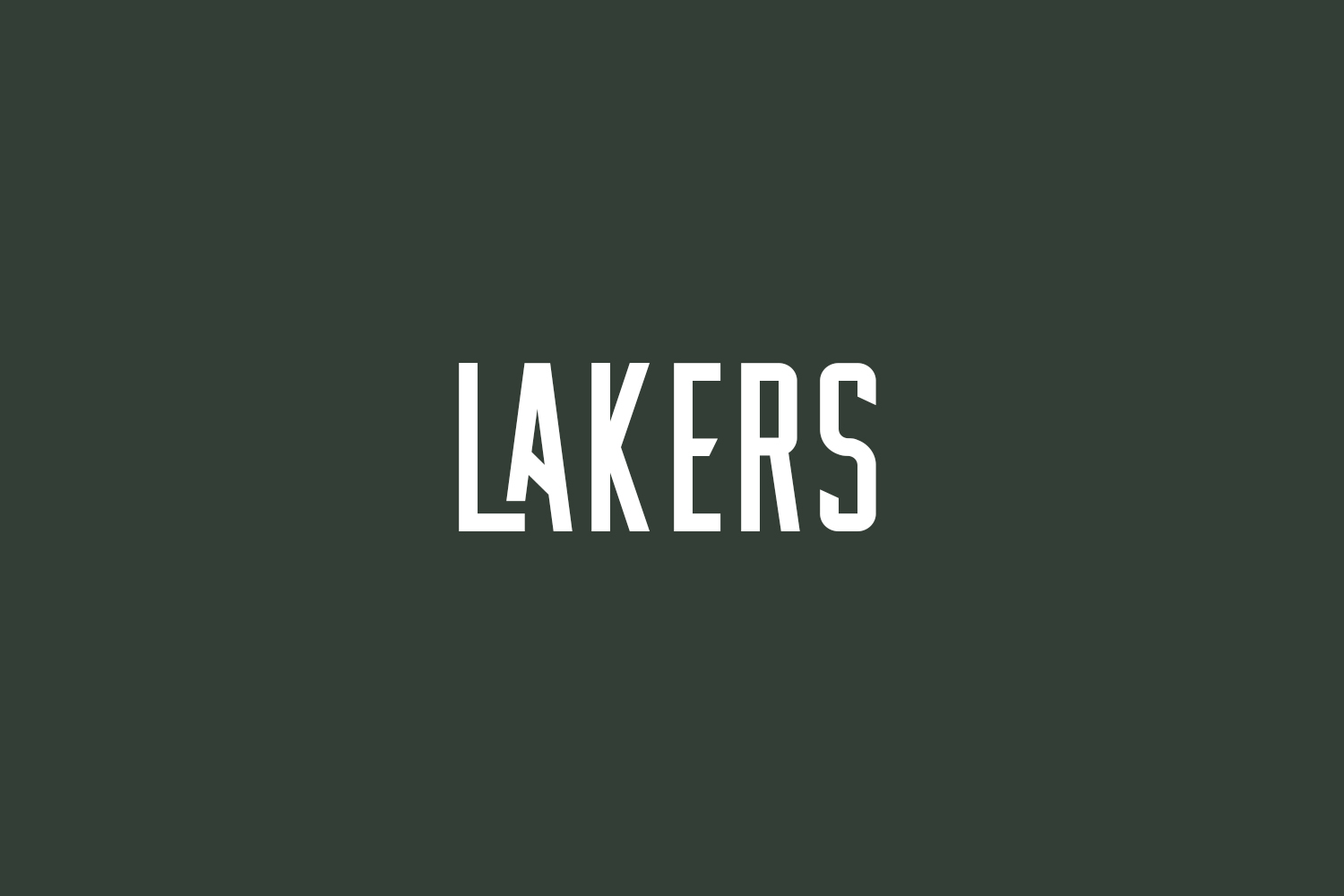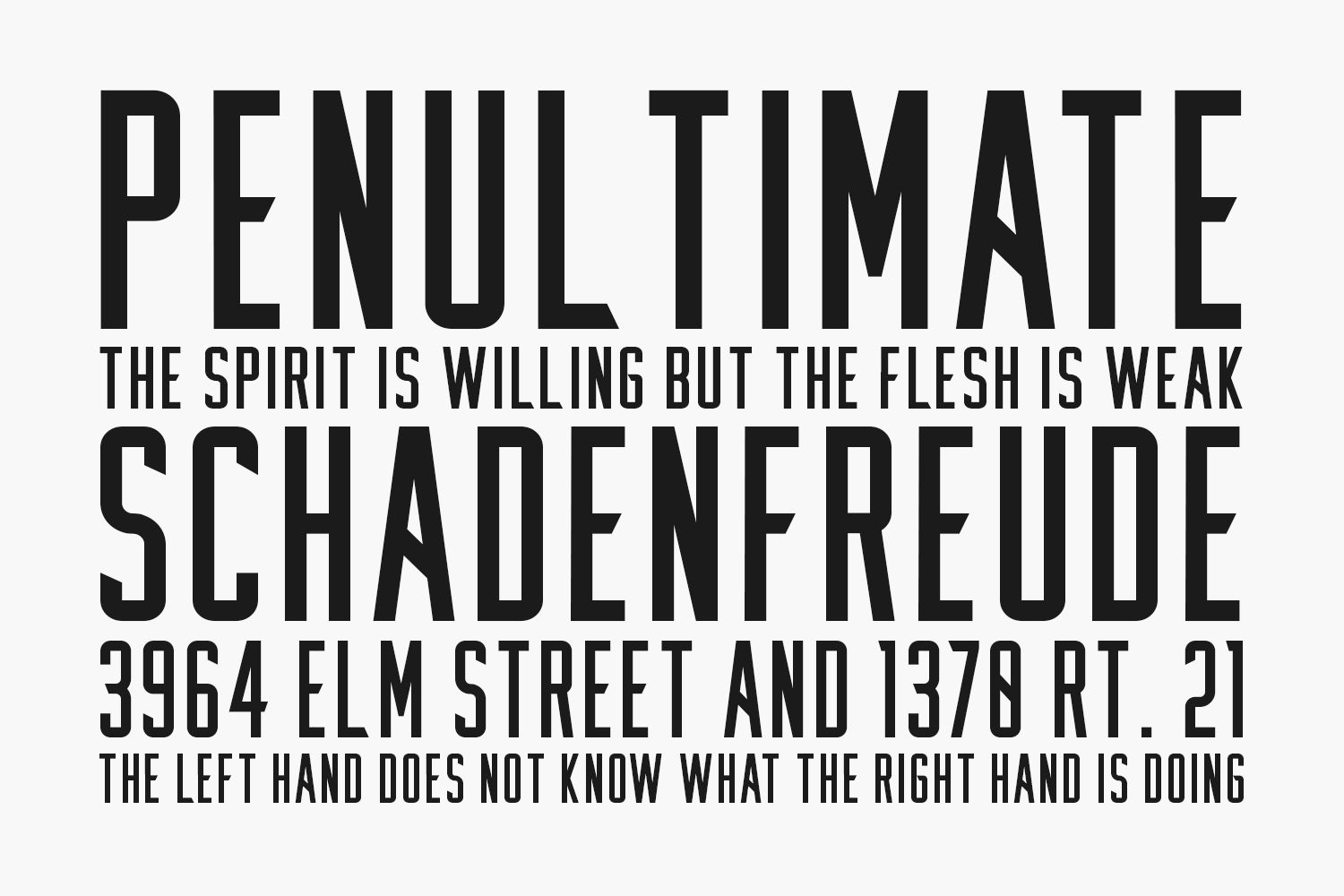
Lakers Free Font Family is a multipurpose condensed uppercase clean sans serif typeface. Lakers Free Font Family is a classic all-caps sans serif font which may be used for absolutely different purposes – from the design of cute postcards to use in rough vintage old-school logos. Visit the store for more great fonts.